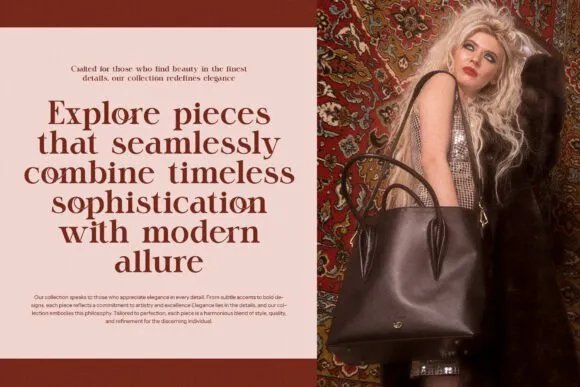
Gidora Font is a refined and contemporary typeface that consistently mixes complexity with a bit of intensity. With its painstakingly created serifs and striking letterforms, Gidora oozes immortal class while keeping a cutting edge offer.
Gidora Font text style’s interesting ligatures and substitute characters add a degree of masterfulness and uniqueness, making it ideal for projects that request meticulousness and differentiation.